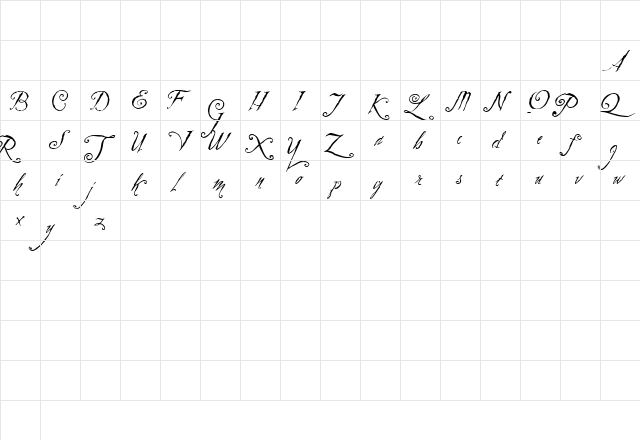
Zothique Demo Regular
Design Context for Zothique Demo Typeface
Zothique Demo is a composed and adaptable typeface that performs quietly and consistently across a wide range of design contexts.